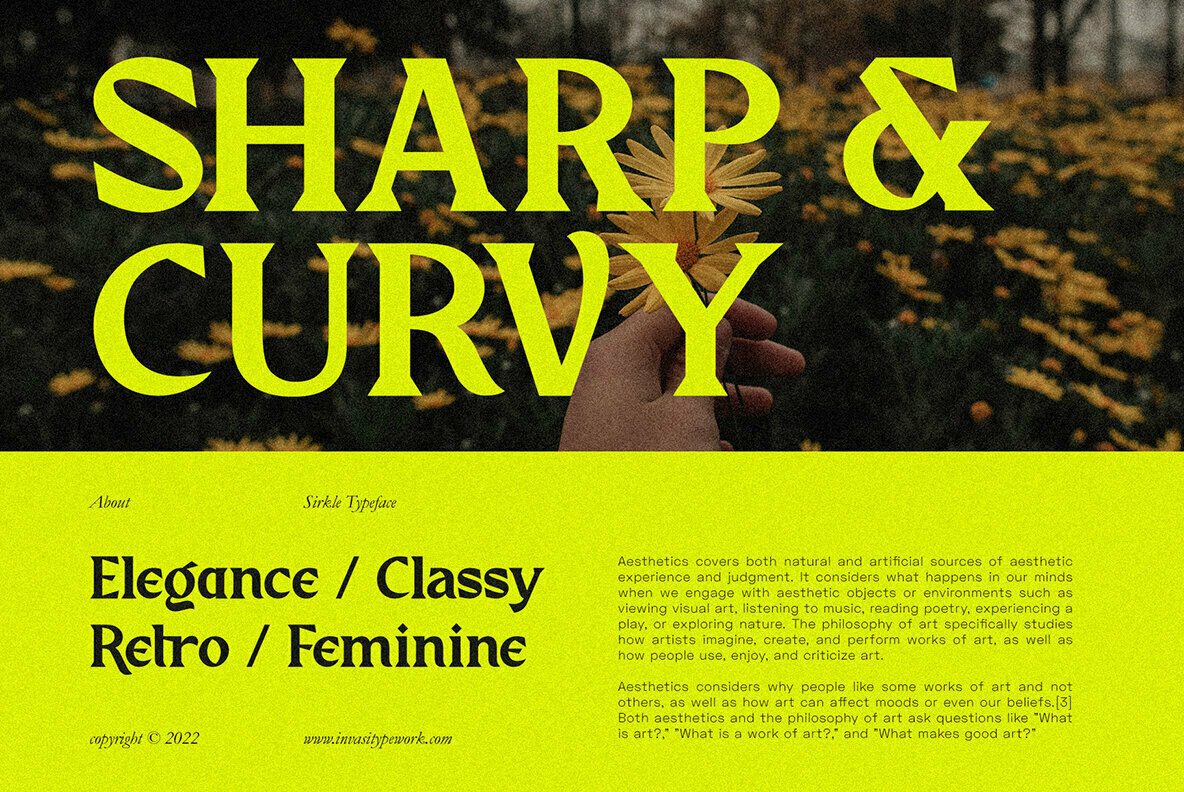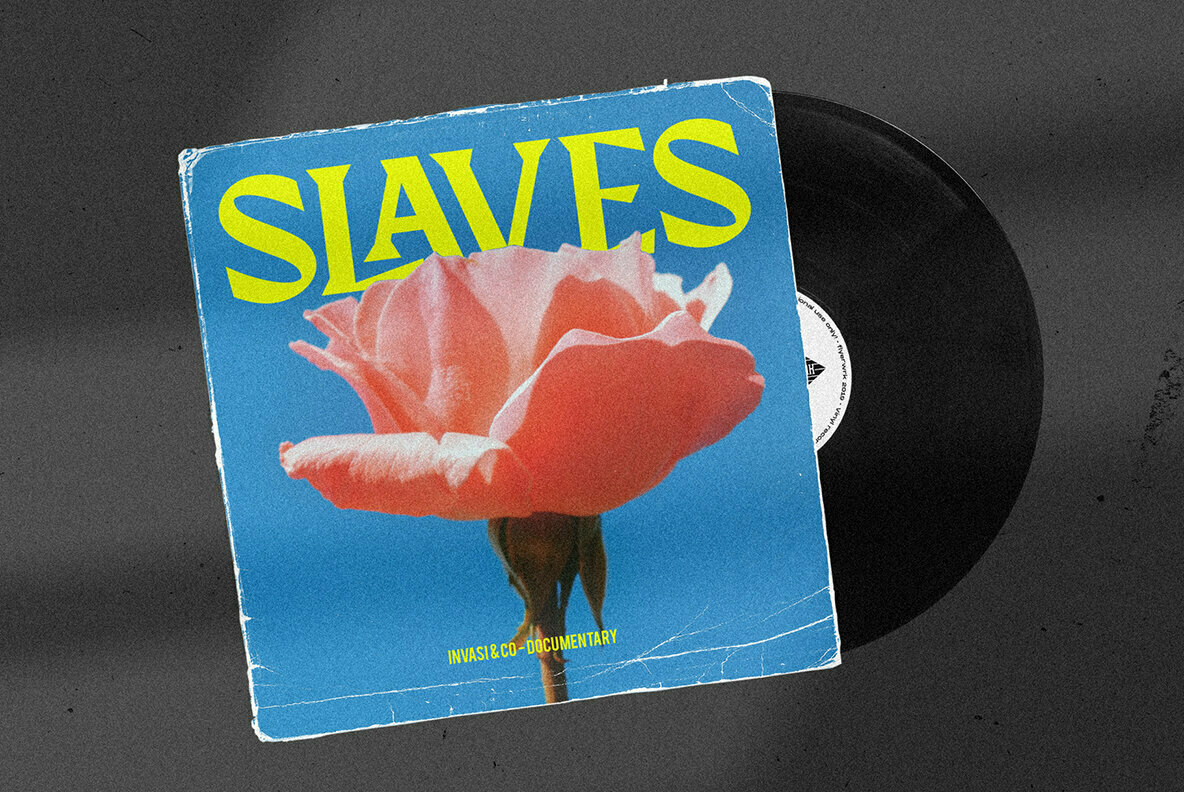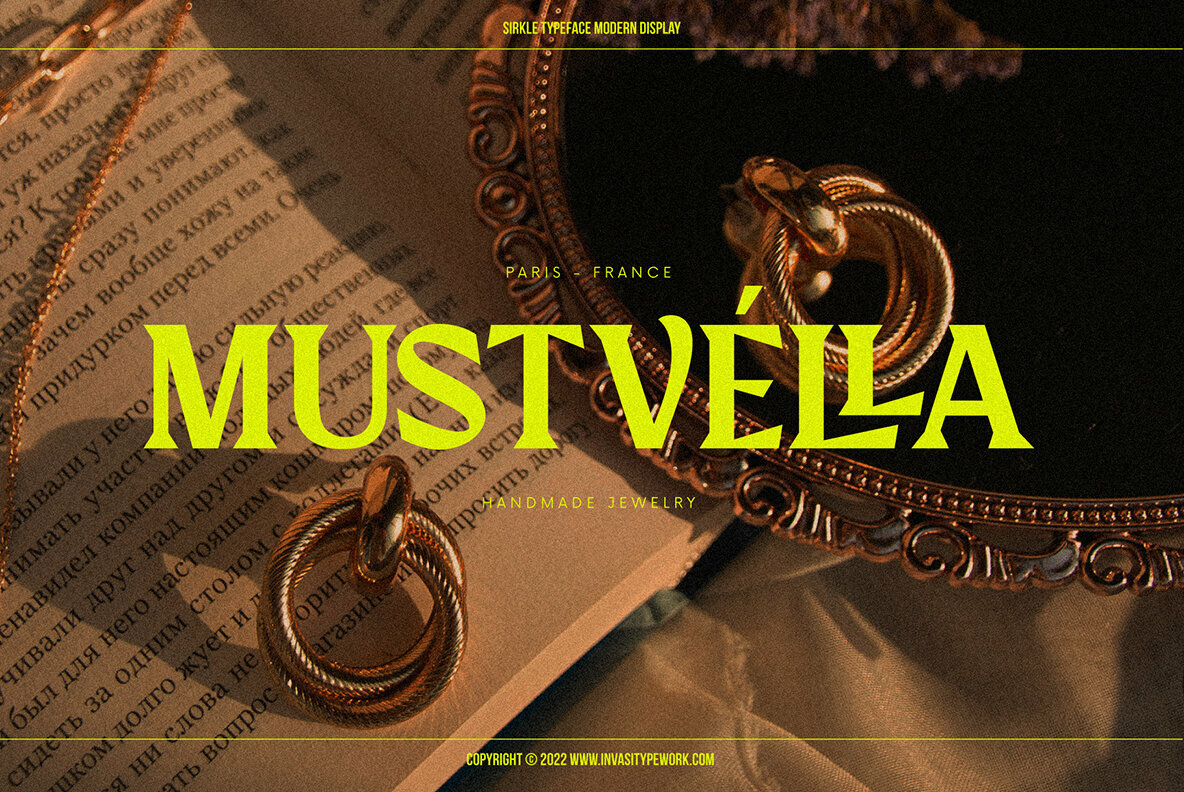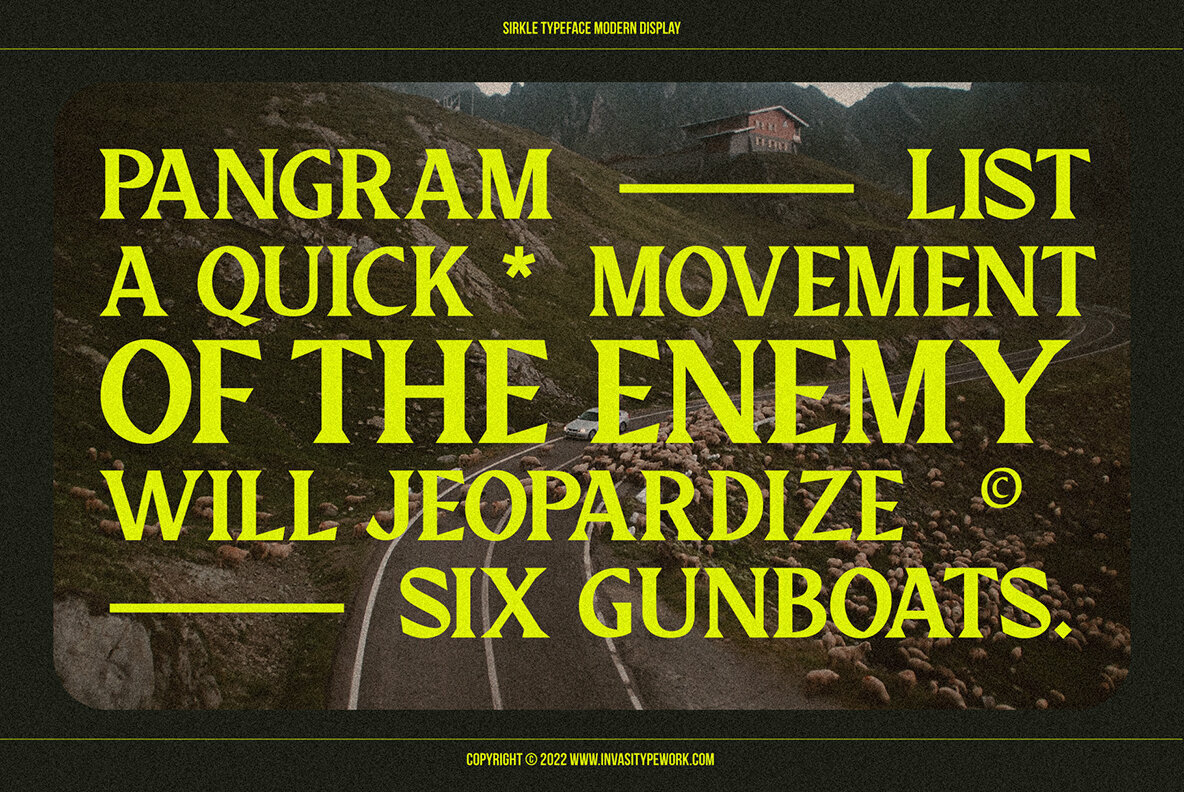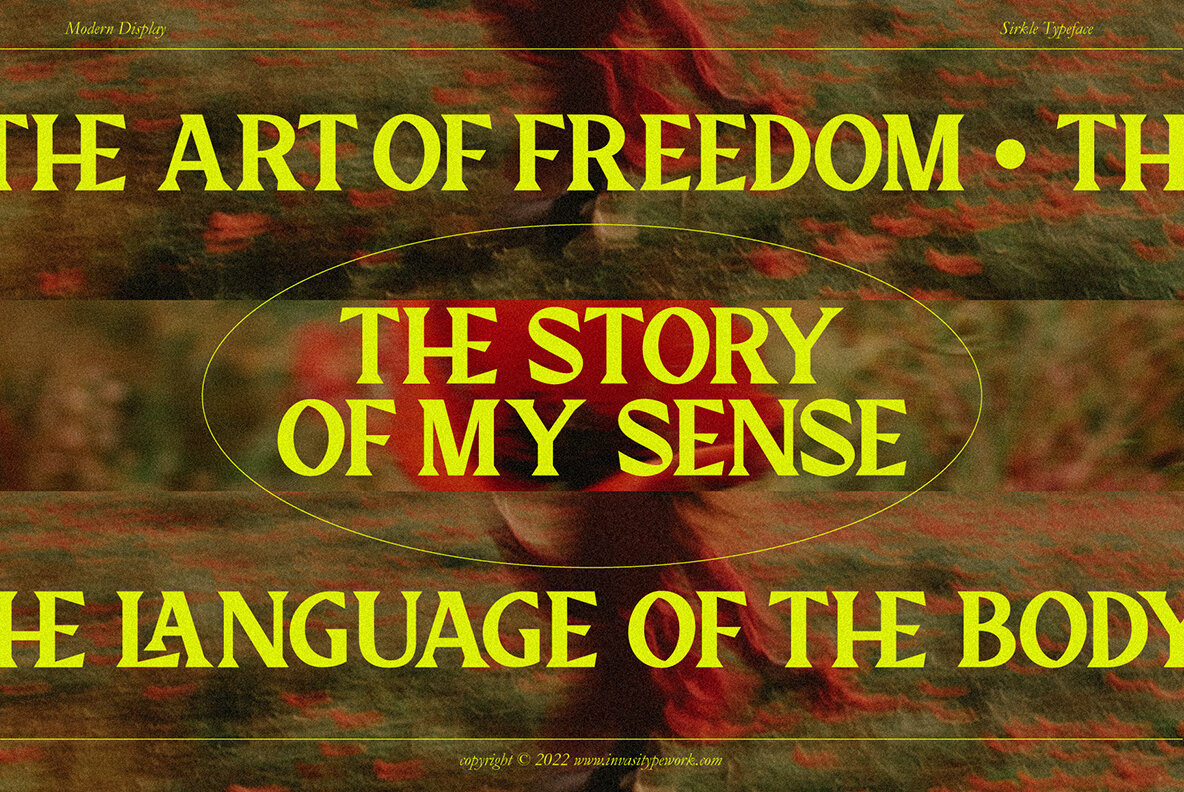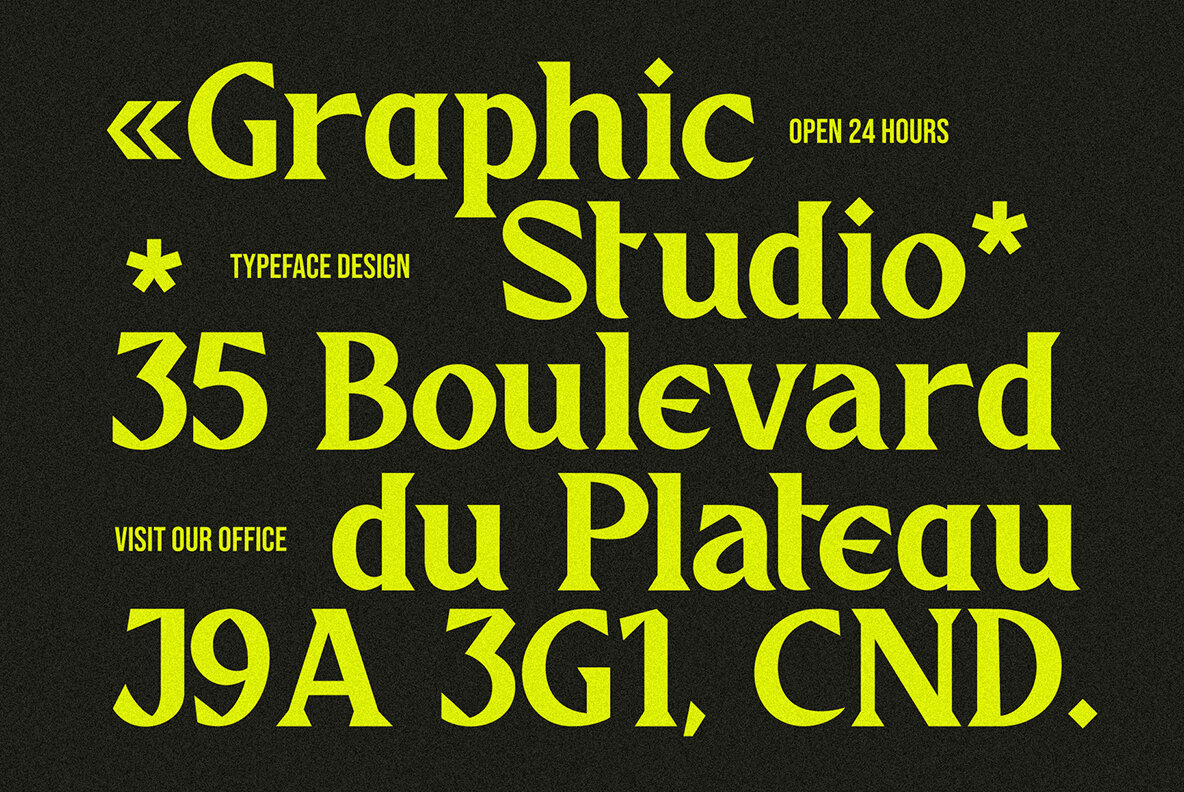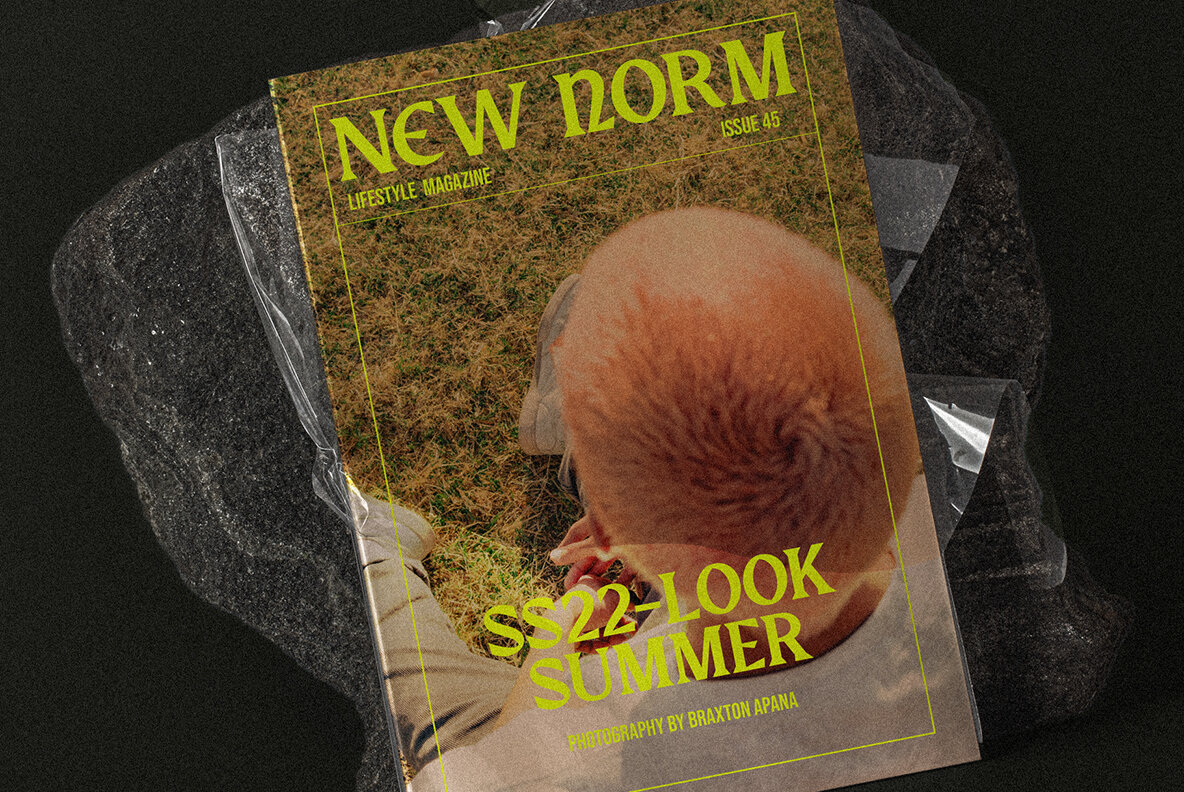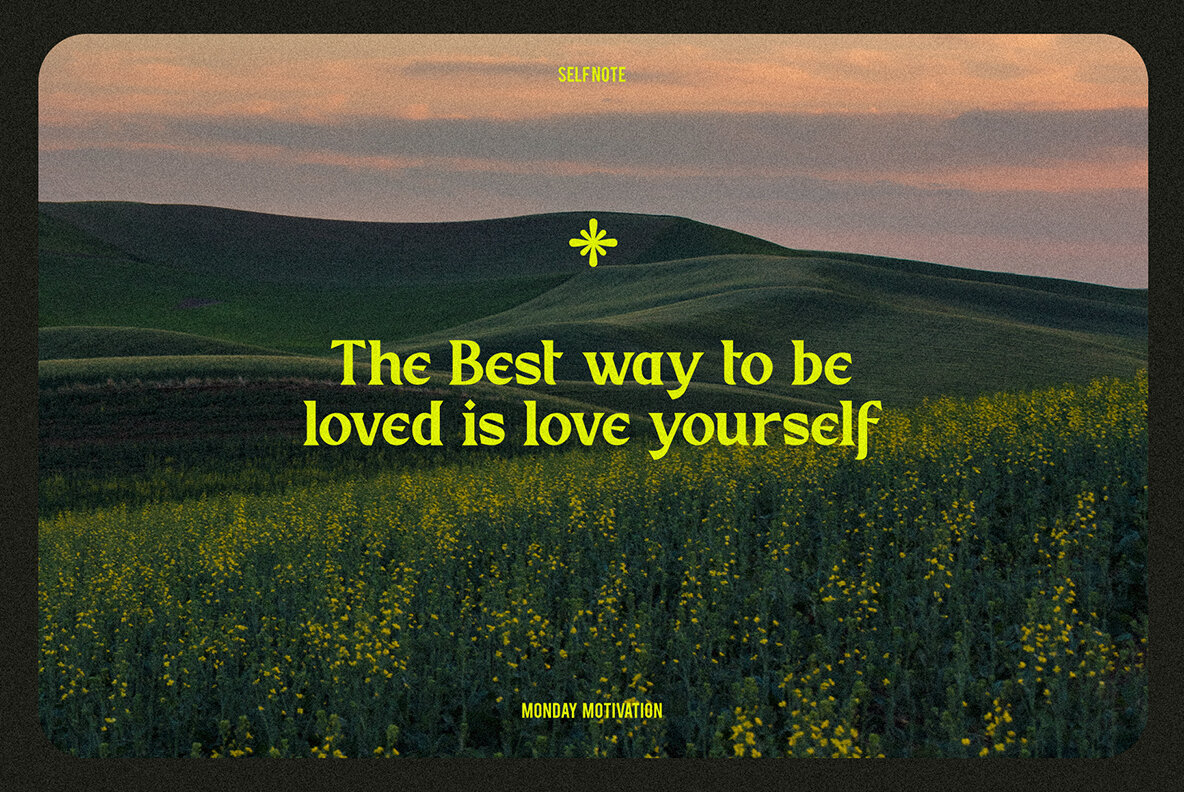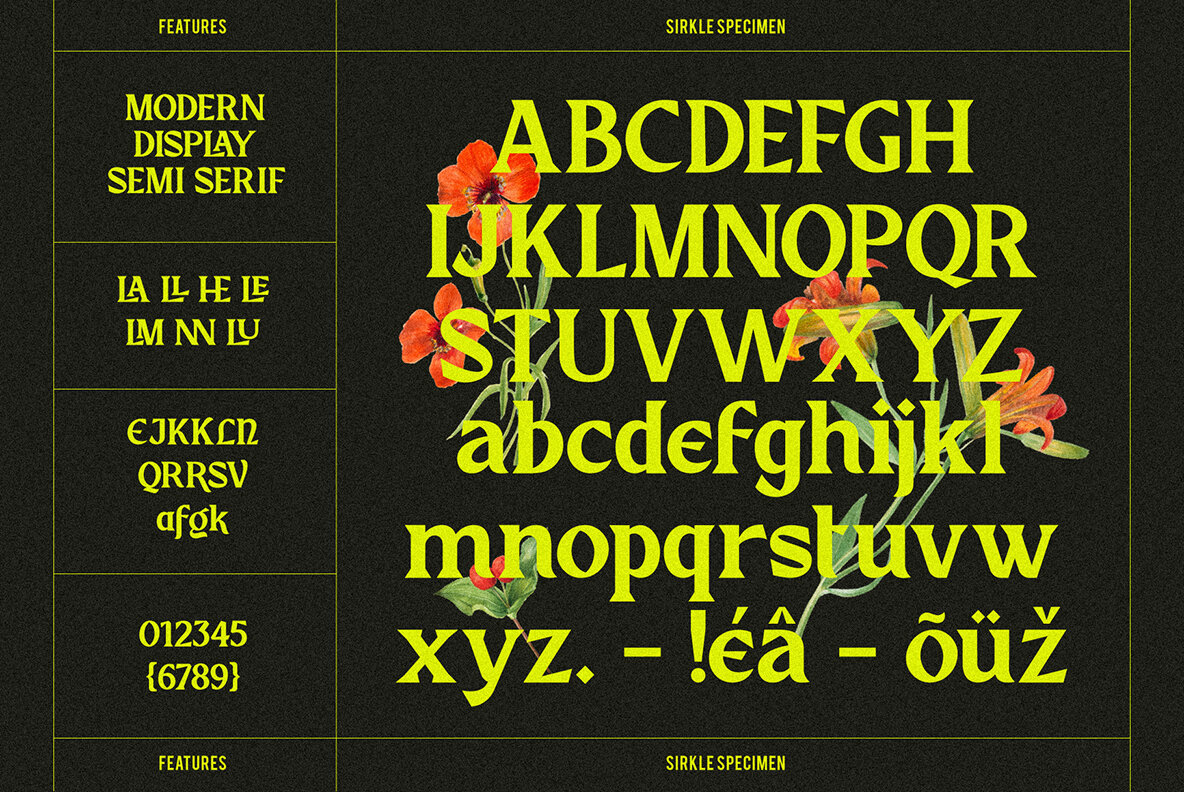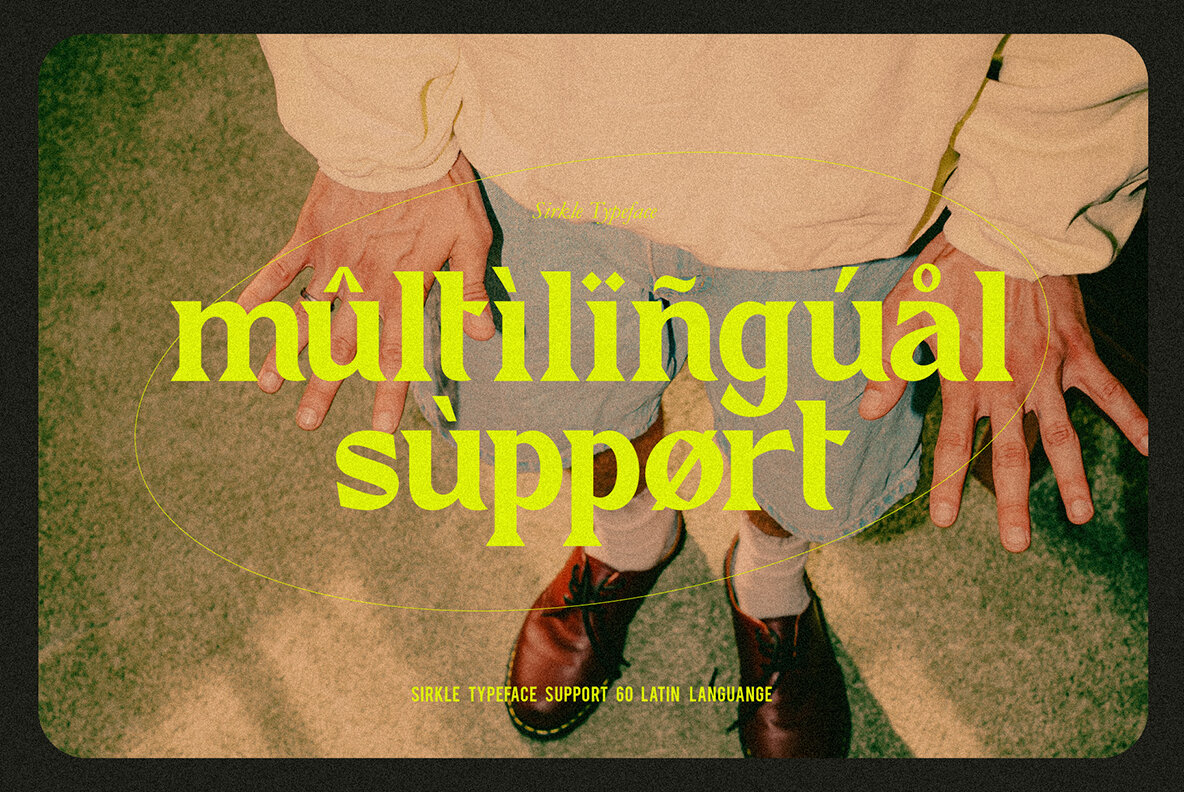
Sirkle is a semi-serif typeface for display, constructed with sharp and curvy characters. All Letters are handcrafted and made to fit each other perfectly without exception, with a modern and edgy style that gives them a unique look. Sirkle comes with ligatures, alternates, and supports 60+ Latin-based languages.
The Sirkle is ideal for logotype, signage, posters, packaging, and much more!